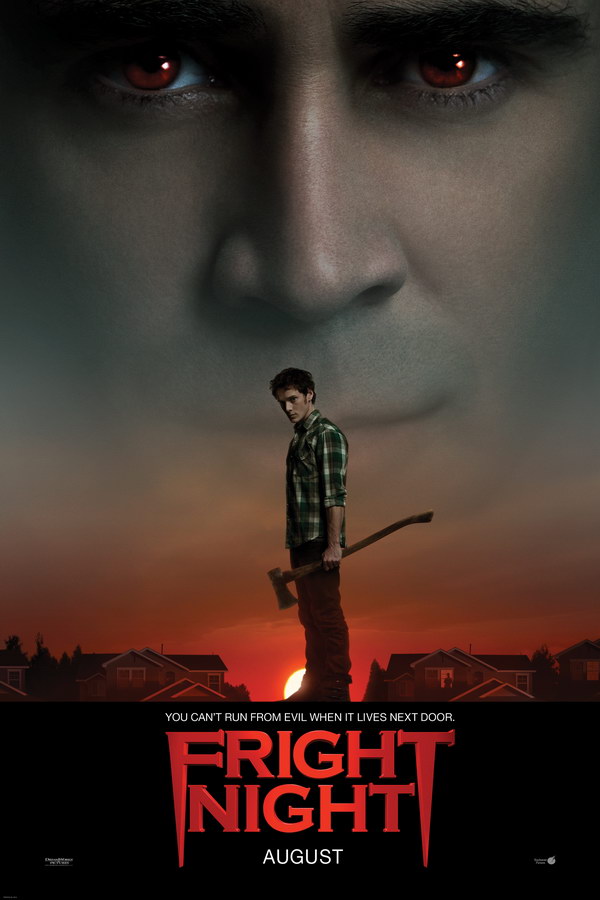
Fright Night Font
Fonts in UseFright Night is a 2011 horror comedy film directed by Craig Gillespie, starring Anton Yelchin, Colin Farrell, and David Tennant. It follows a teenage boy who discovers that his neighbor is a vampire and enlists the help of a Las Vegas magician to help him defeat him.
The font used for the "Fright Night" lettering in the poster appears to be American Gothic URW Bold, with added fangs on the letters F and T. This font is commercially available and can be purchased here.